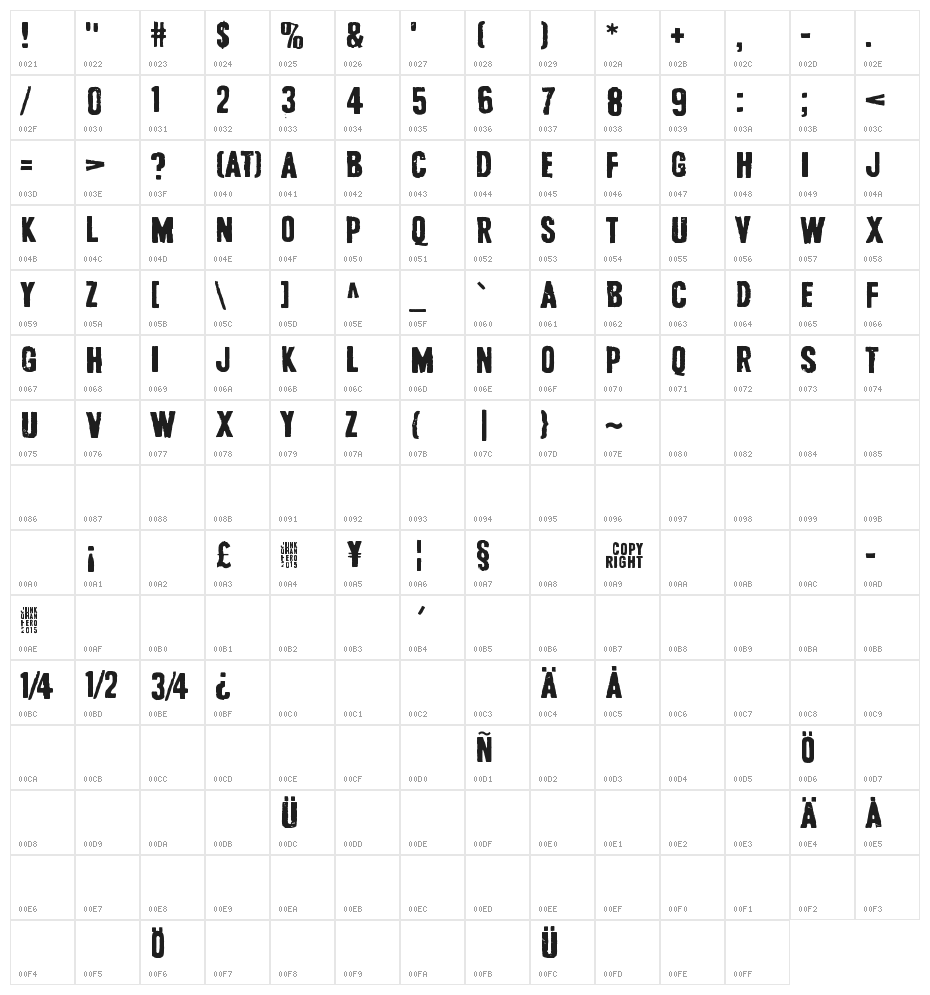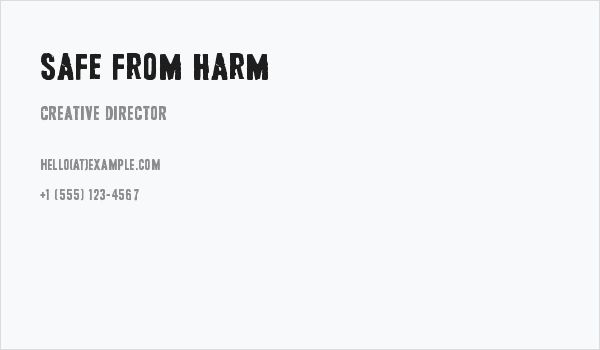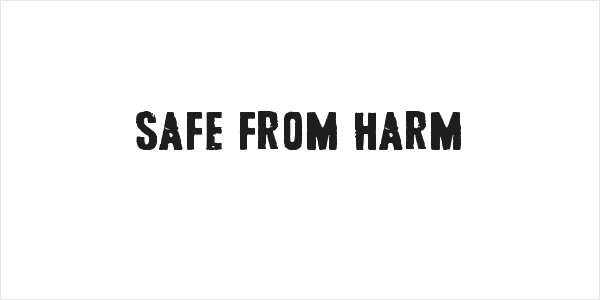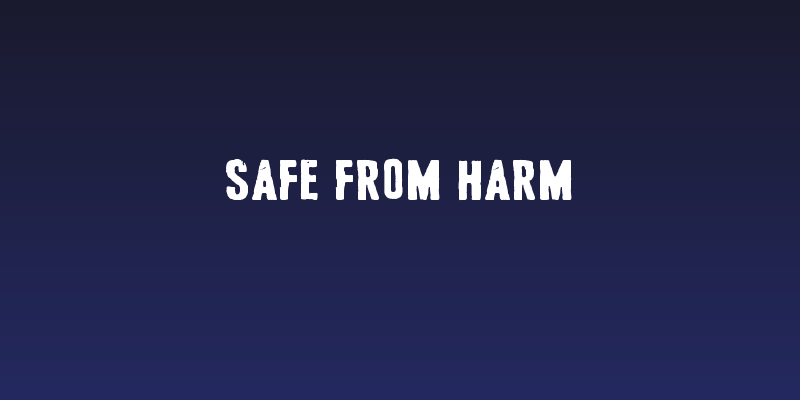
Safe from harm Font
Safe from harm Description
This font exhibits a rugged and distressed style, characterized by its bold and impactful appearance. The letters have a textured, worn-out look, giving them a vintage and industrial feel. The uppercase and lowercase letters maintain a consistent weight, with slightly irregular edges that enhance the distressed effect. The numerals and special characters follow the same design, ensuring uniformity across all glyphs. This font's boldness and unique texture make it stand out, ideal for projects that require a strong visual impact. Its design is reminiscent of old printing techniques, adding a nostalgic touch to any design.
| Proposed Projects | Ideal for posters, album covers, branding, and any design needing a bold, vintage look. |